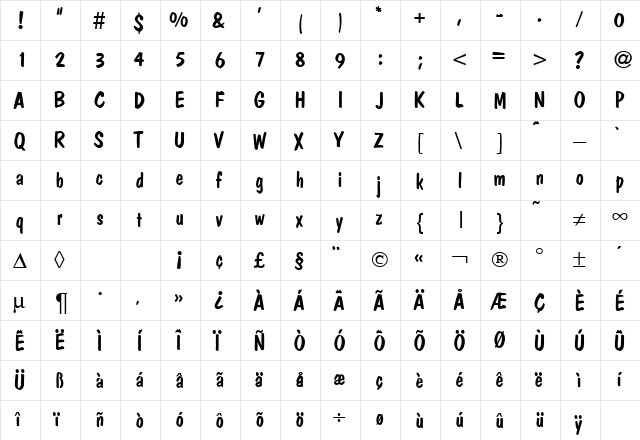
PolCasual Regular Font Preview
PolCasual Regular
Design Context for PolCasual Typeface
PolCasual takes a measured approach to typography — its balanced proportions and neutral character make it a reliable workhorse for both digital and print work.